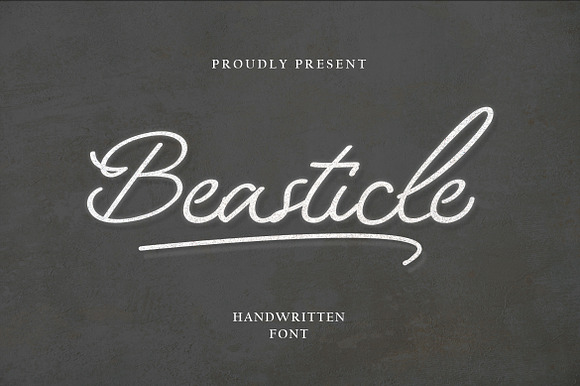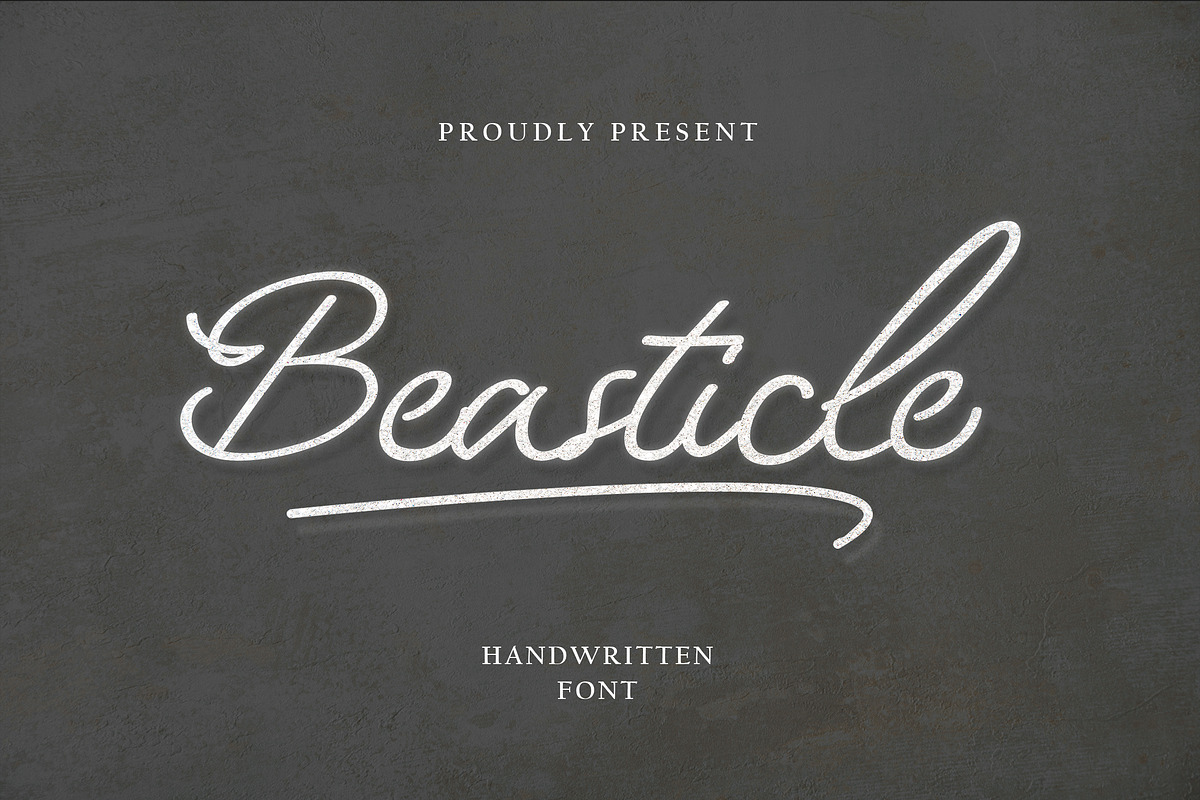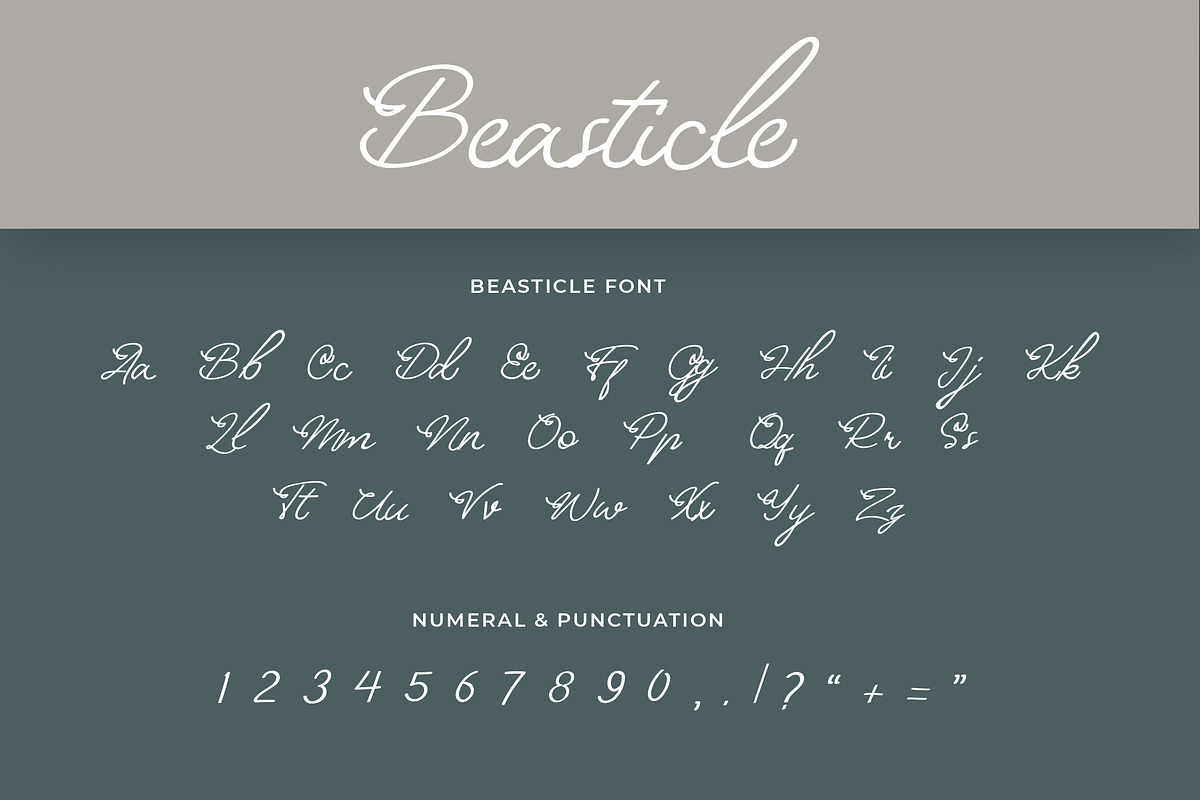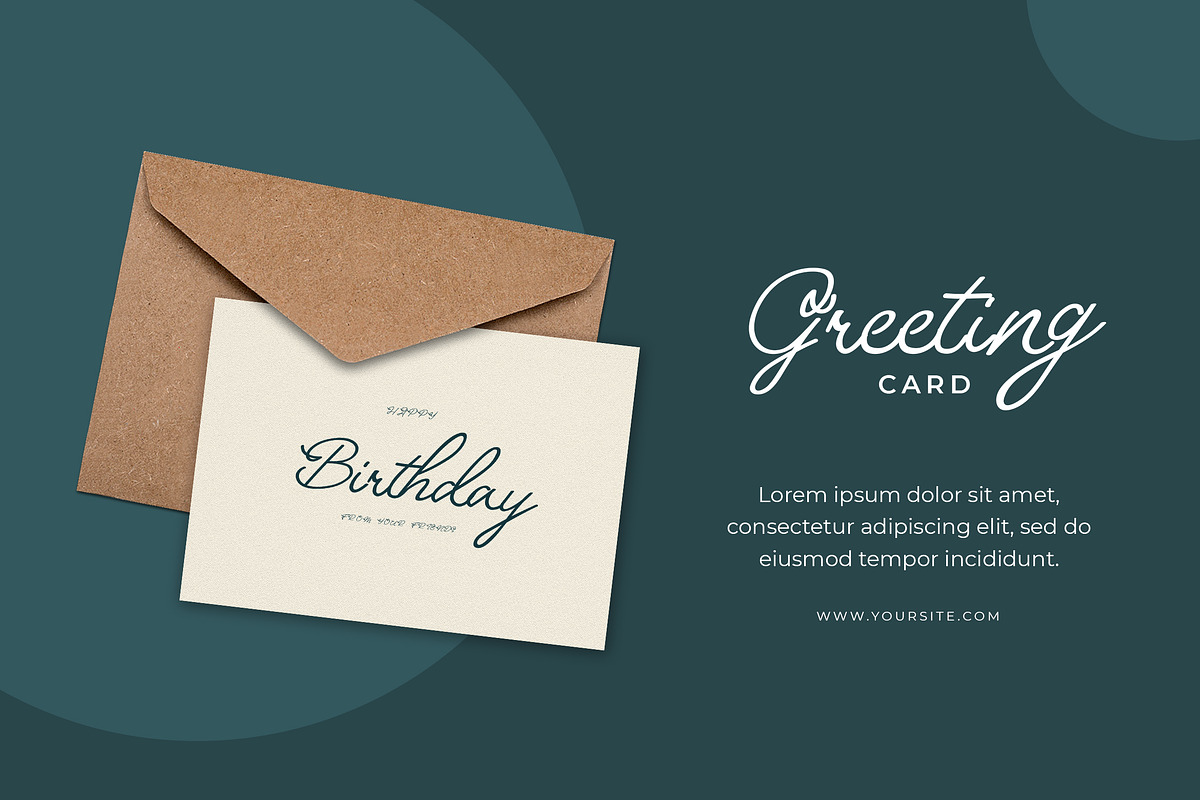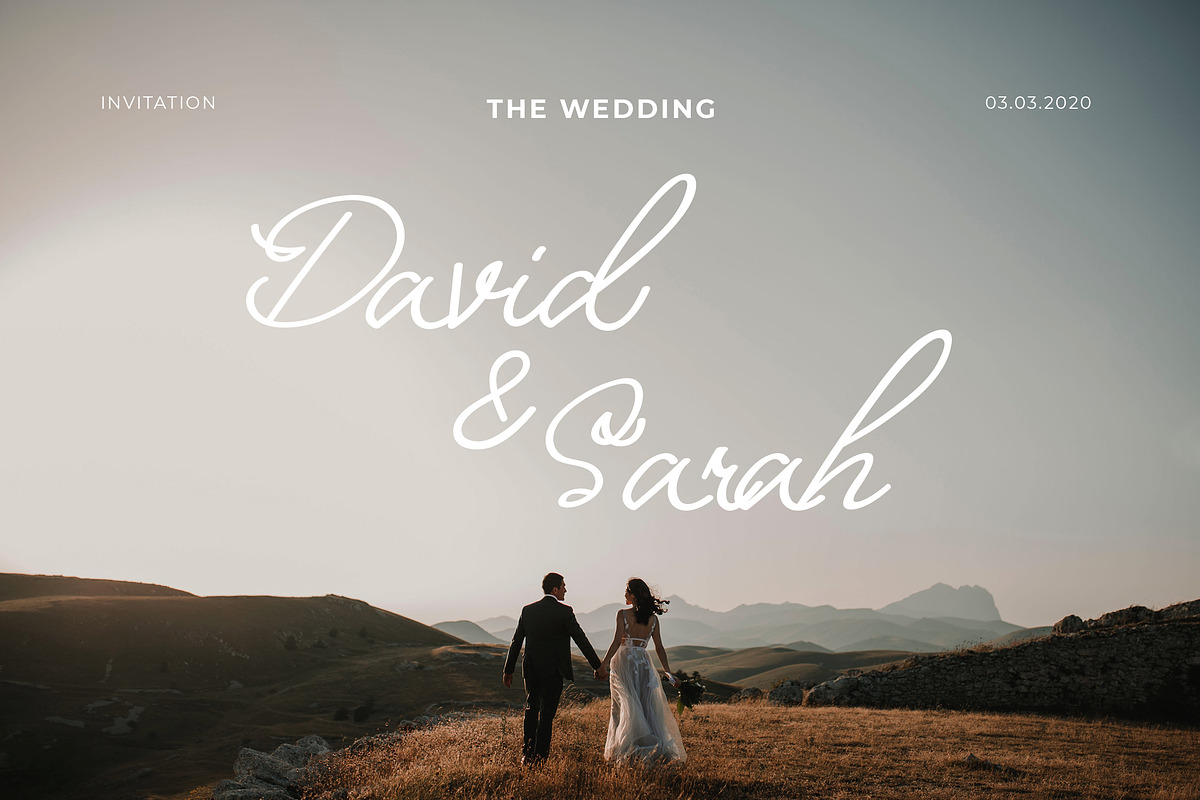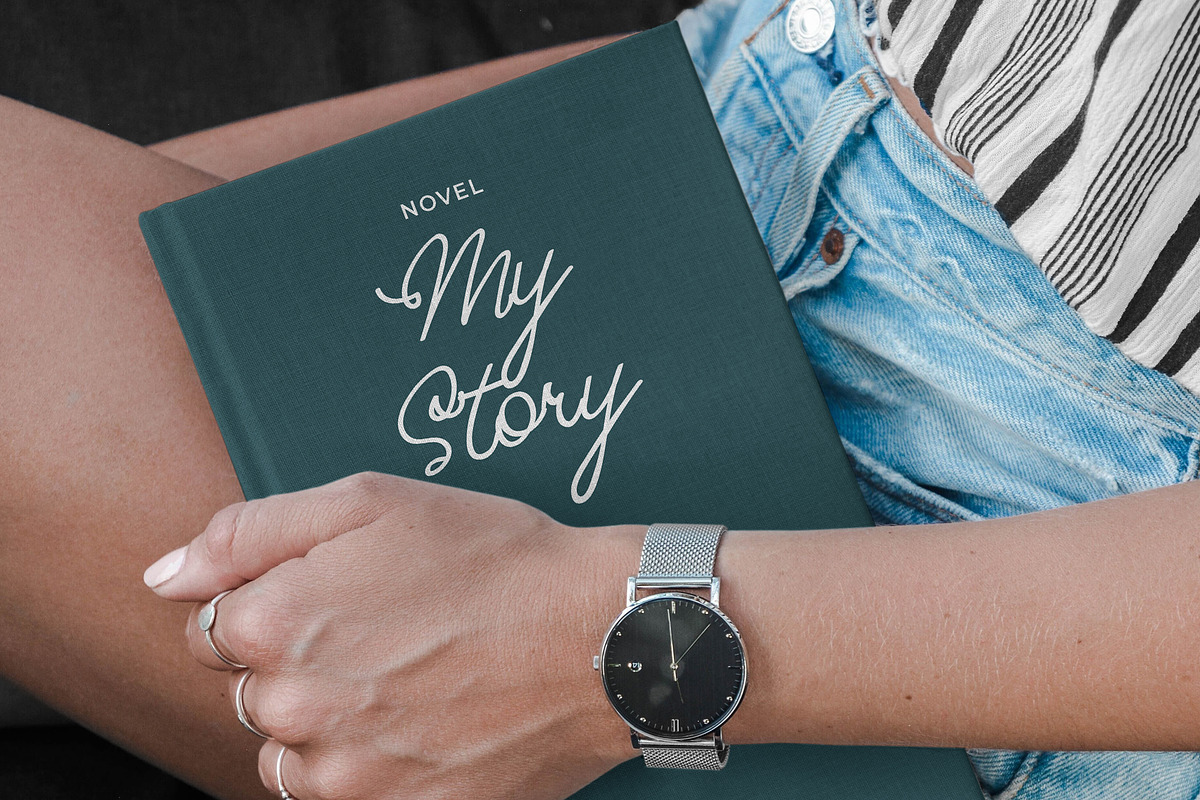
Beasticle Handwritten Font
Beasticle is made a naturally modern script with a fresh modern script; delivering a stylish script which is guaranteed to add an eye-catching appeal to your logo designs, brand imagery, quotes, product packaging, merchandise & social media posts
Beasticle Handwritten Font by UICreative fits naturally into Branding, posters, packaging, typography.